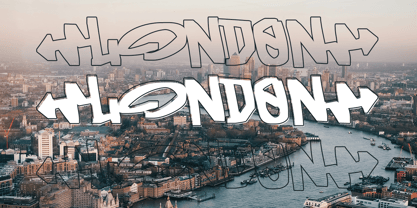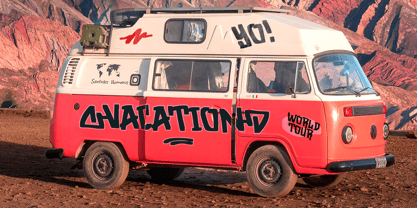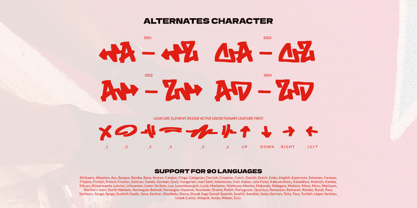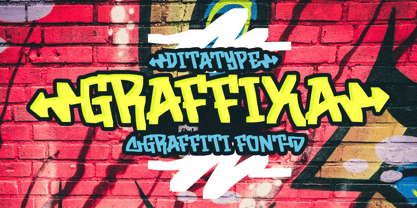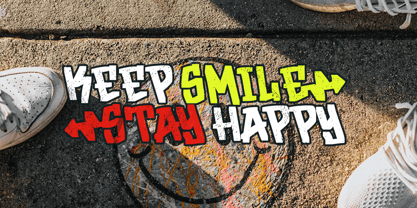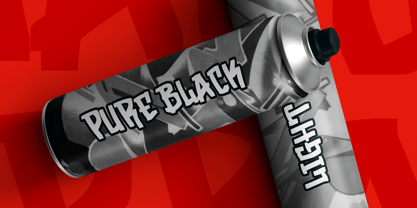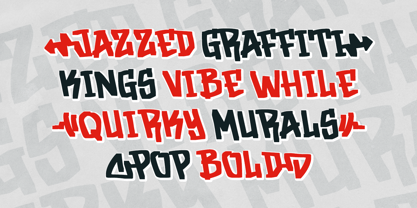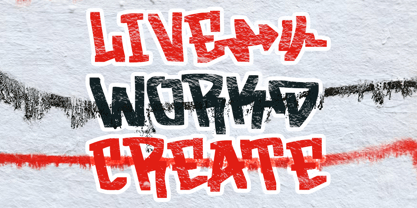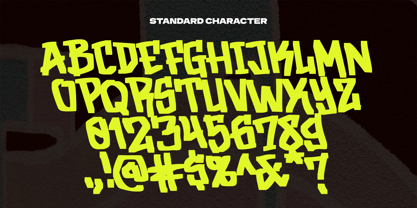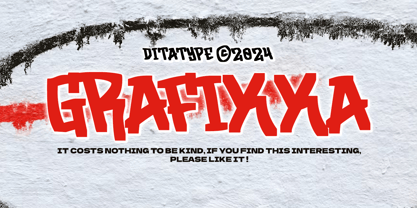
Graffixa
by Ditatype
The Graffixa Font Family was designed by Donis Miftahudin and published by Ditatype. Graffixa contains 1 styles.
Graffixa is a dynamic graffiti font designed in all caps with a fairly thick weight and sharp corners that pack a punch. Inspired by street art energy, each letter is crafted to leave a striking impression and inject an urban aesthetic into your designs. In addition, enjoy the features here.
Features:
• Alternates
• Multilingual Supports
• Numerals and Punctuations
Graffixa fits in headlines, logos, posters, branding materials, packaging, print media, editorial layouts, and many more designs. Find out more ways to use this font by taking a look at the font preview.